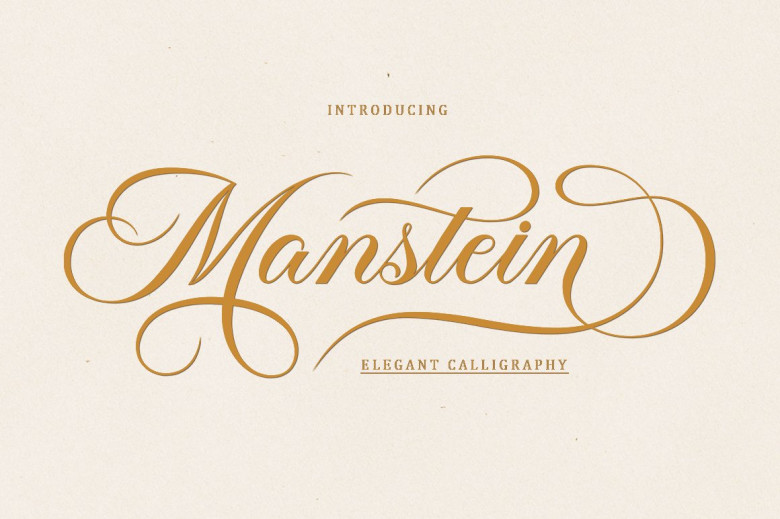
Manstein Font
Manstein is a stunning script font with stunning character changes. Combining traditional copper decorative calligraphy with contemporary touches, its design has been meticulously thought-out to ensure it produces an elegant appearance.
Manstein Calligraphy Script Font